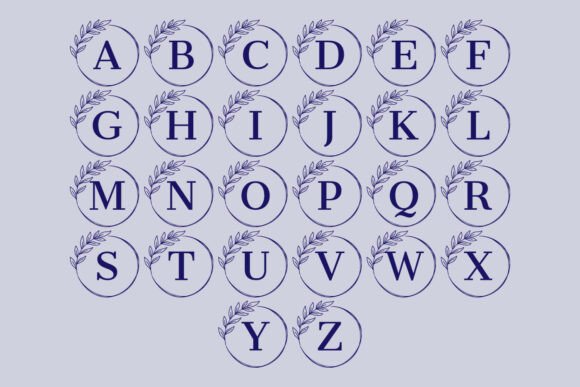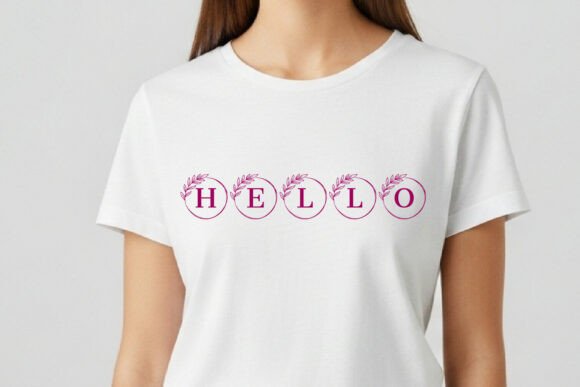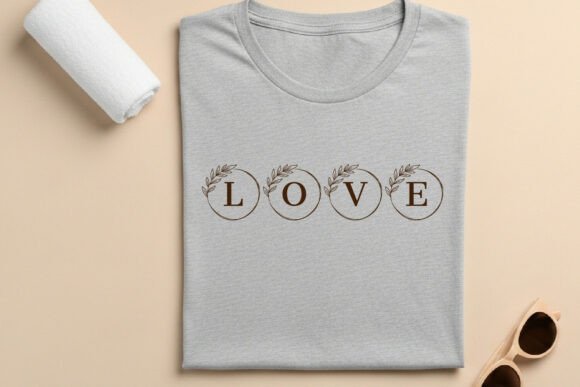
Introduction to Olive Crest Monogram Font
Olive Crest Monogram Font is a clean and elegant decorative font featuring uppercase initials surrounded by delicate botanical wreath accents.
Designed in a timeless minimal style, this monogram font is perfect for wedding invitations, luxury branding, Cricut crafts, sublimation, logo creation, nursery decor, stickers, personalized gifts, and DIY projects The refined circular frame and soft leafy details create a sophisticated feminine aesthetic suitable for both modern and classic designs.
Key Features of Olive Crest Monogram Font